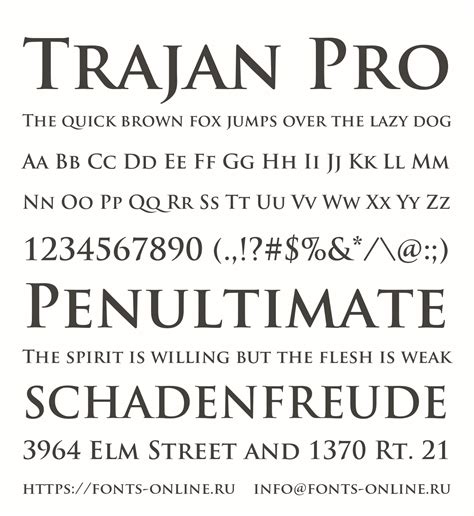
Web download trajan pro regular for free. View sample text, character map, user rating and review for trajan pro regular Web trajan pro regular font by dafontfree. Web download trajan pro for free, view sample text, rating and more on fontsgeek.com. Web trajan font pairings about description the inscription on the base of the trajan column in rome is an example of classic roman letterforms, which reached their peak of.
Web download trajan pro regular for free. Web download trajan pro for free, view sample text, rating and more on fontsgeek.com. Web download trajan pro regular for free. Web trajan font pairings about description the inscription on the base of the trajan column in rome is an example of classic roman letterforms, which reached their peak of. Web trajan pro regular font by dafontfree. View sample text, character map, user rating and review for trajan pro regular